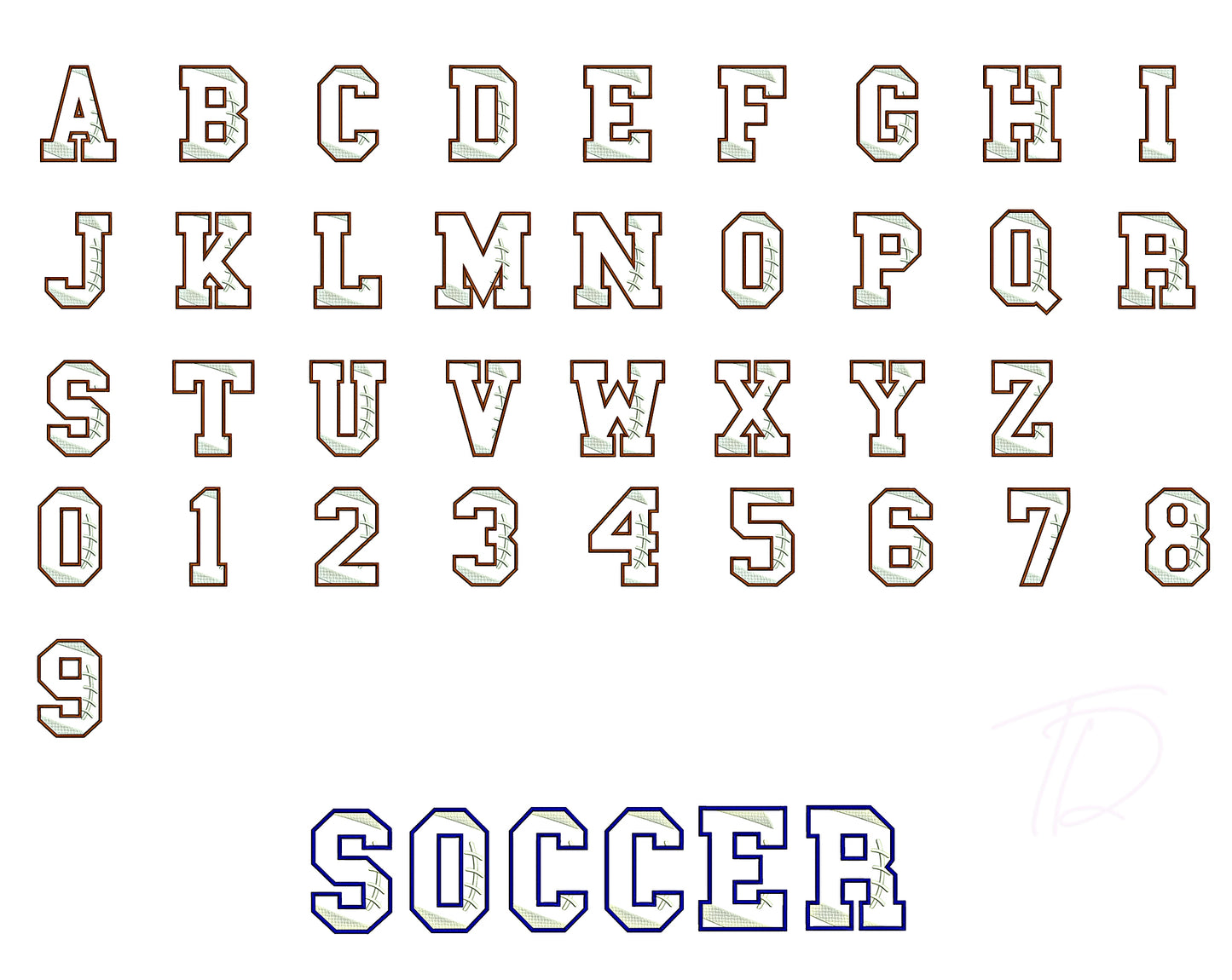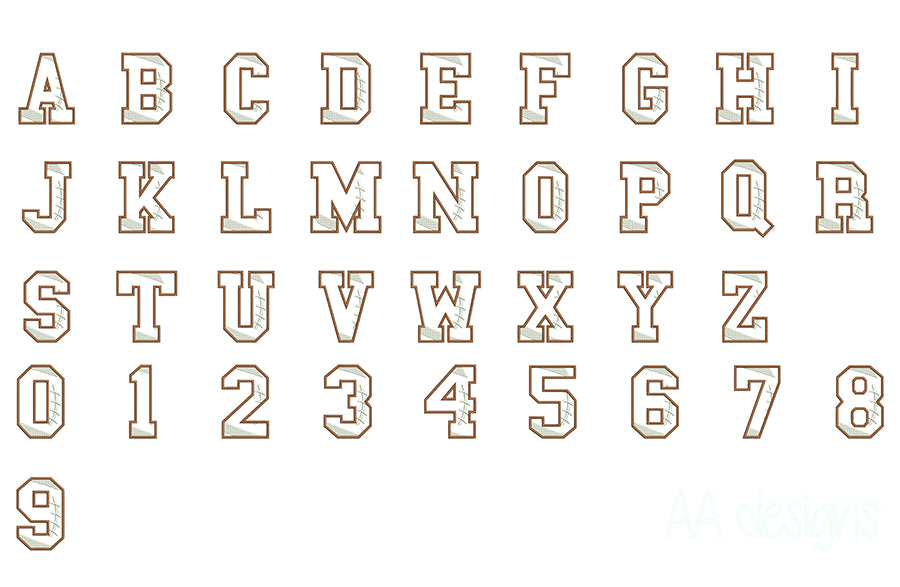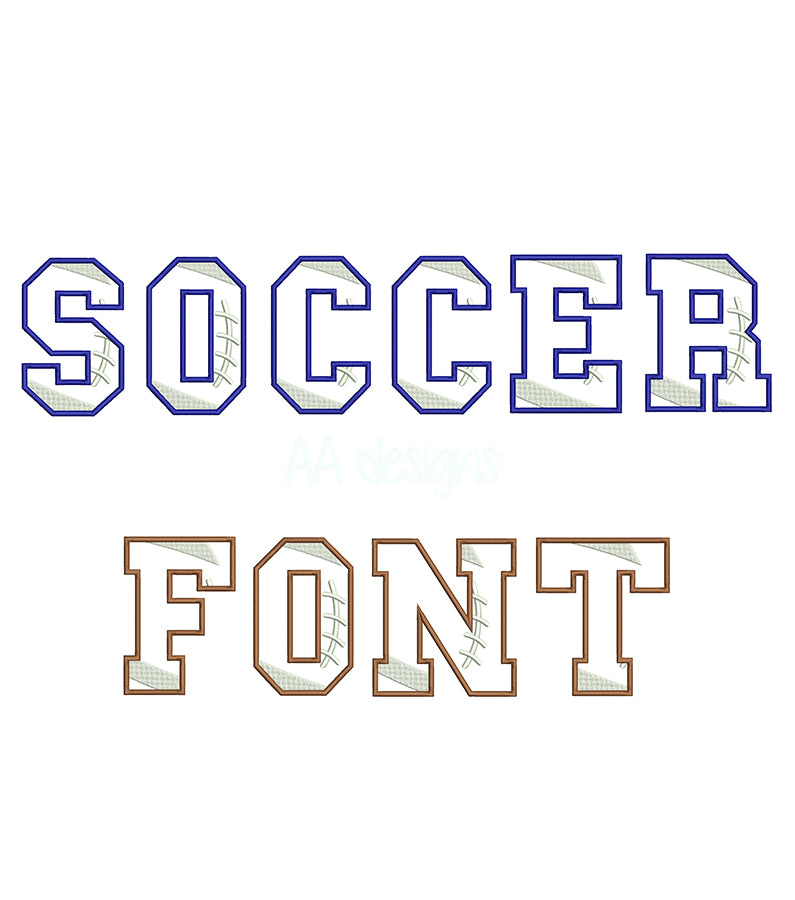
Soccer Ball Applique Embroidery Font
Score big on creativity with our Soccer Ball Applique Embroidery Font — a fun, sporty alphabet featuring soccer ball-inspired design elements, built specifically for applique machine embroidery. The layered fabric technique gives each letter a bold, dimensional look that stands out on any project.
- Applique-style construction for a vibrant, textured finish with lower stitch count
- Unique soccer ball-themed letterforms — playful, bold, and full of character
- Perfect for kids' jerseys, team bags, backpacks, hats, towels, and fan gear
- Works beautifully on fleece, felt, denim, canvas, and knit fabrics
From youth league uniforms to soccer-themed birthday gifts, this applique font brings the excitement of the pitch to every stitch.